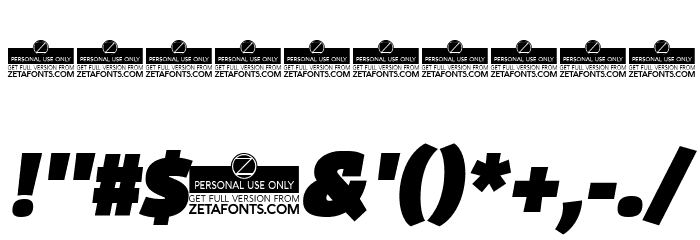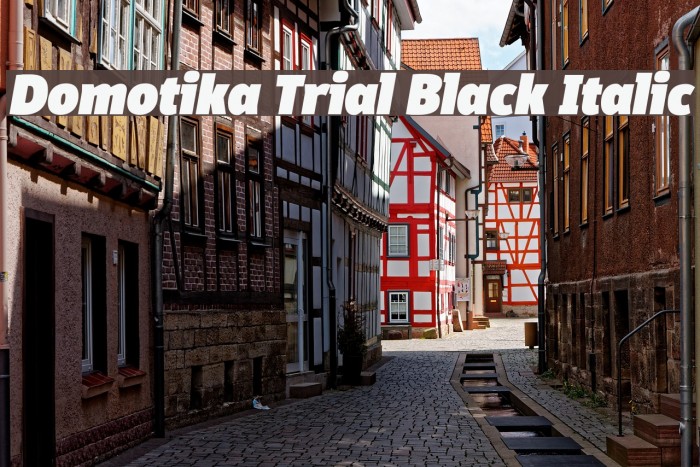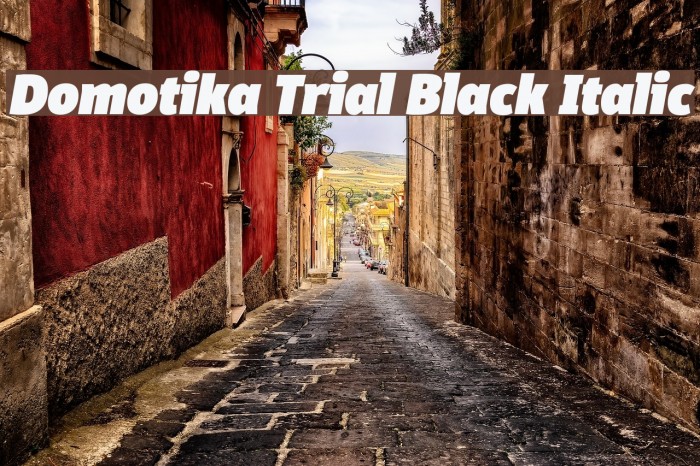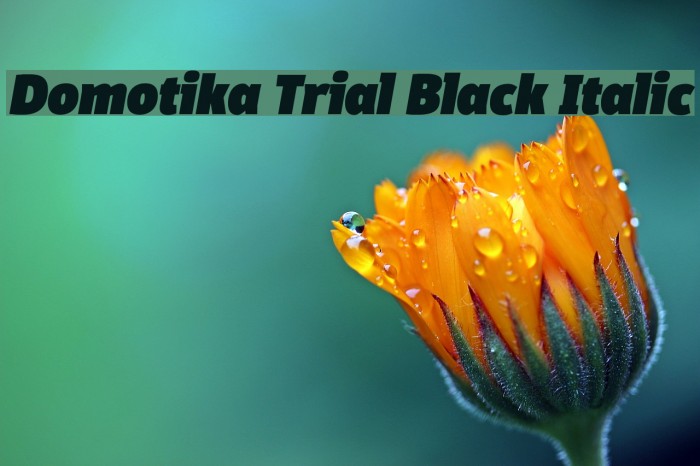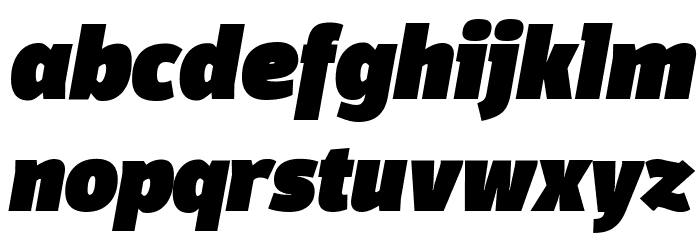
Domotika Trial Black Italic Font
Domotika Trial Black Italic Description
This font features a bold and dynamic style with a strong italic slant, giving it a sense of movement and energy. The characters are thick and robust, making it highly legible and impactful. The uppercase and lowercase letters maintain a consistent weight, providing a uniform appearance across different text sizes. The numbers and special characters are designed to match the boldness of the alphabet, ensuring a cohesive look. This font's boldness and italic style make it suitable for attention-grabbing headlines and titles.
A bold, italic font with a dynamic and energetic style from Uncategorized fonts.
- Proposed Projects: Ideal for branding, advertising, posters, and headlines where a strong visual impact is needed.